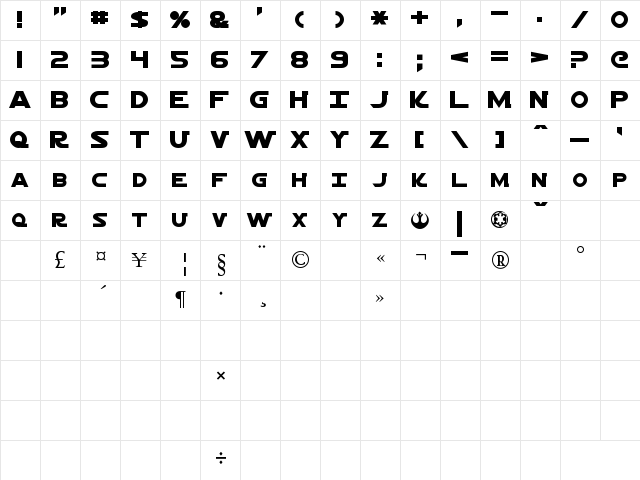
Jedi Regular
Design Context for Jedi Typeface
Jedi is a composed and adaptable typeface that performs quietly and consistently across a wide range of design contexts.